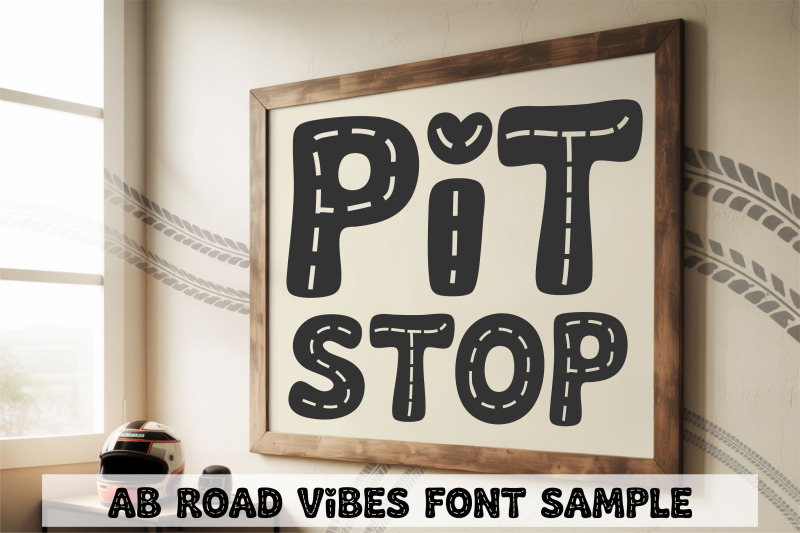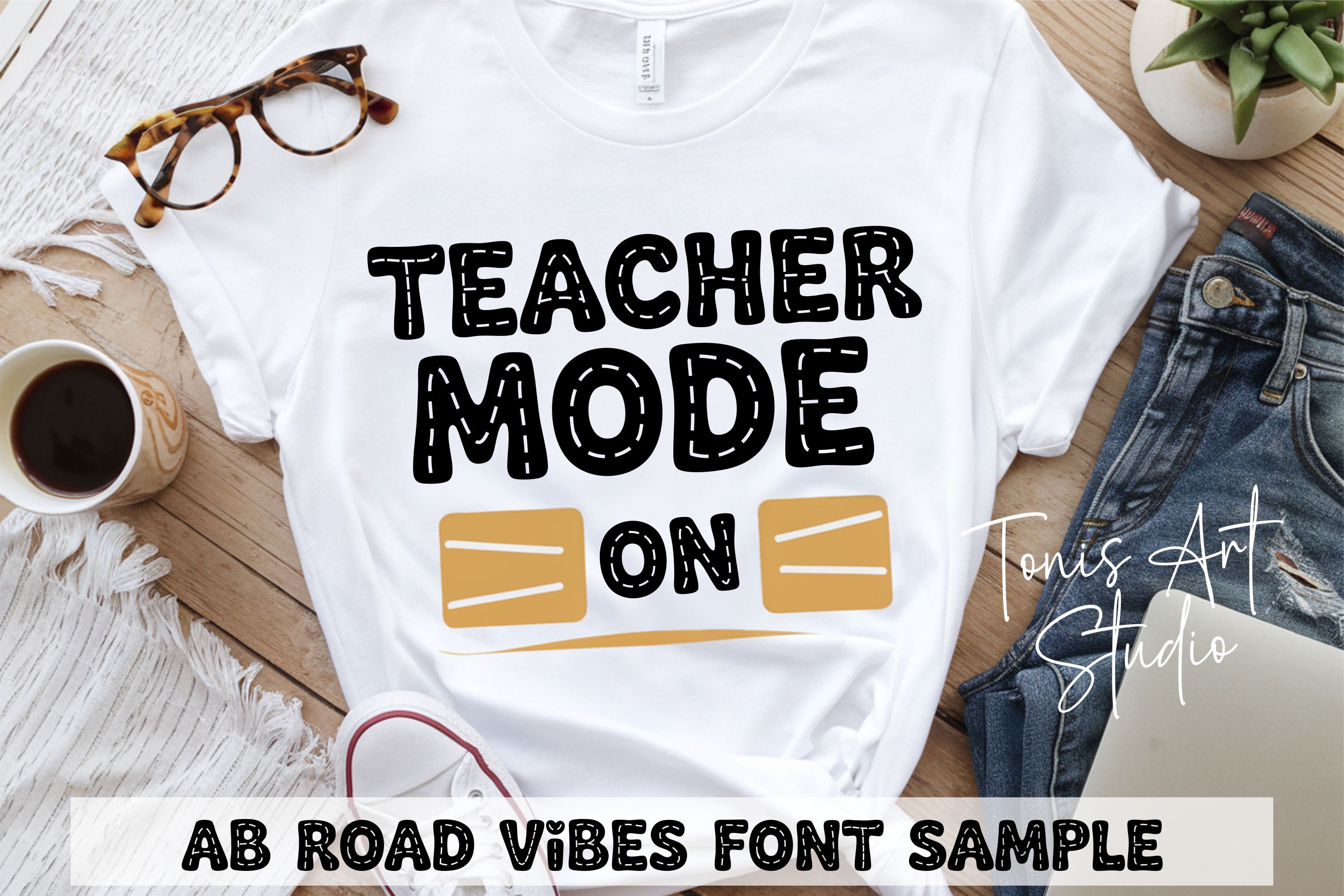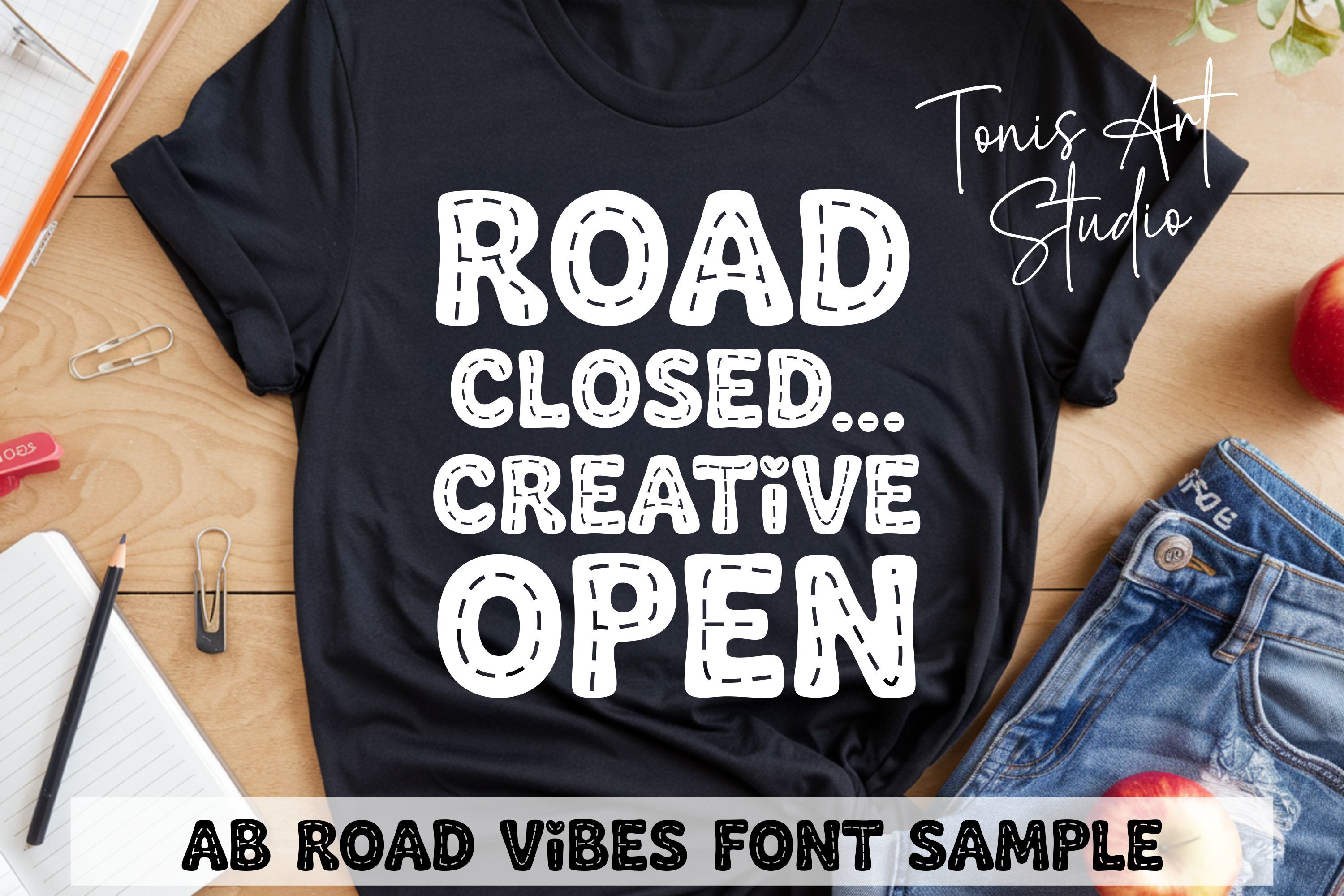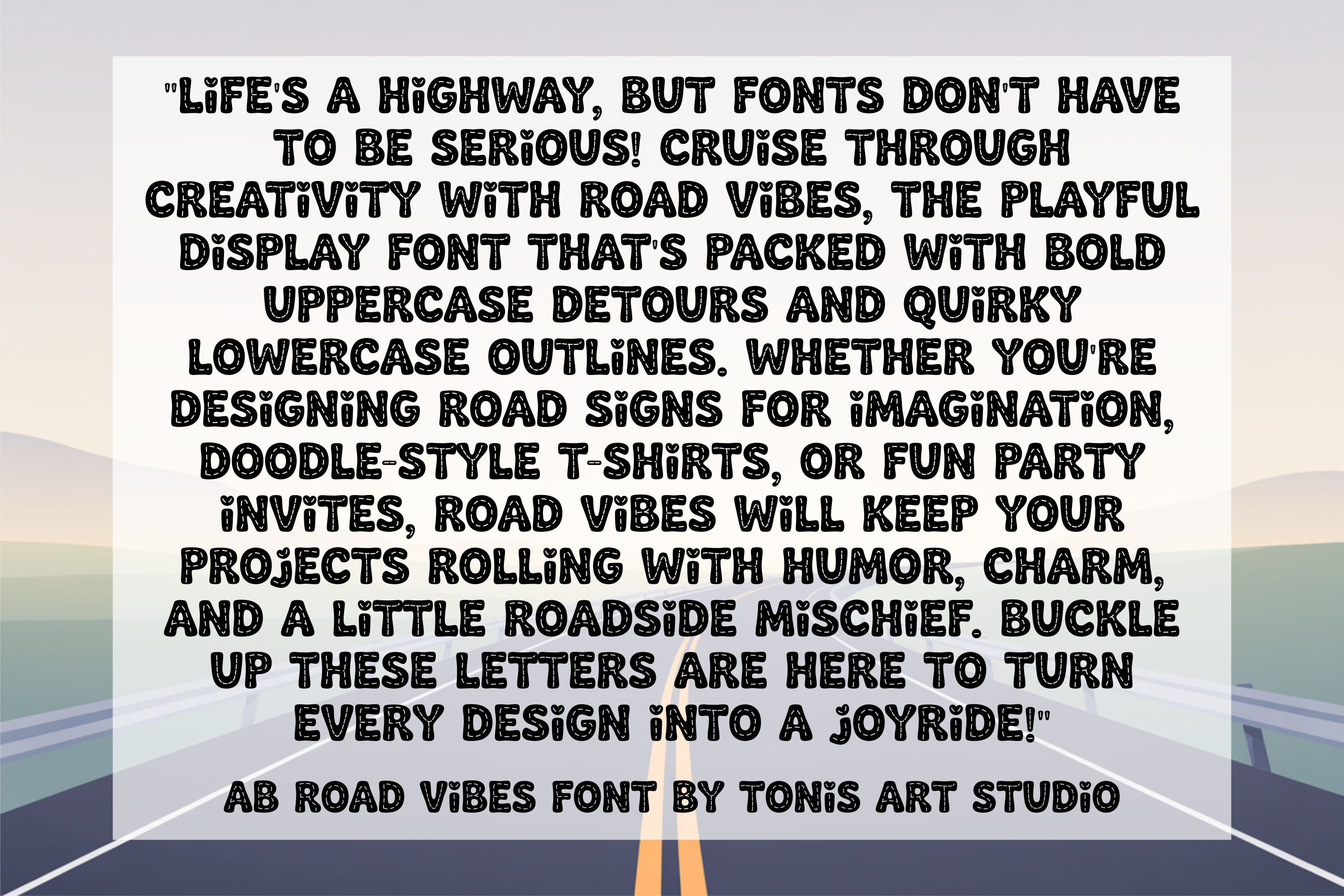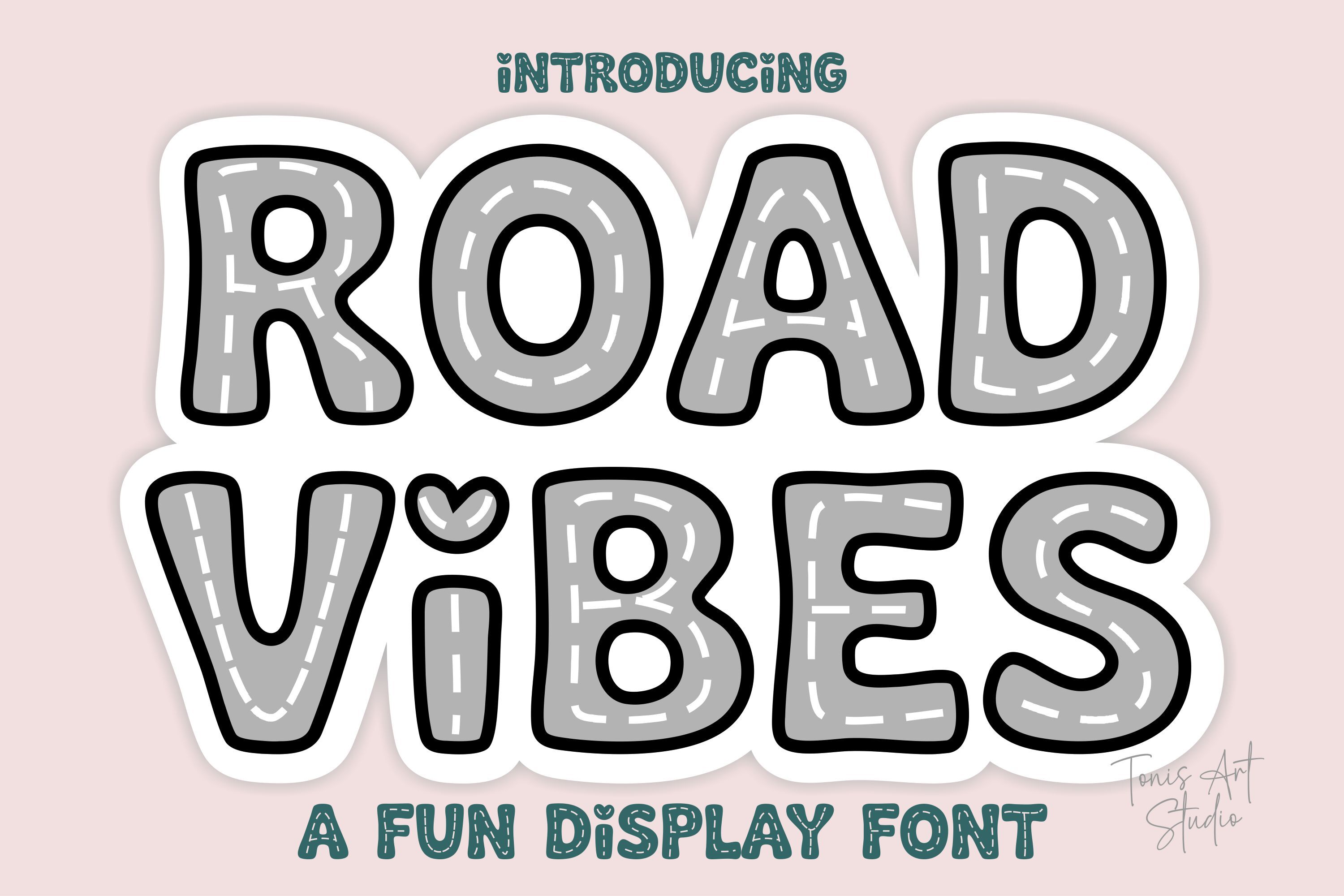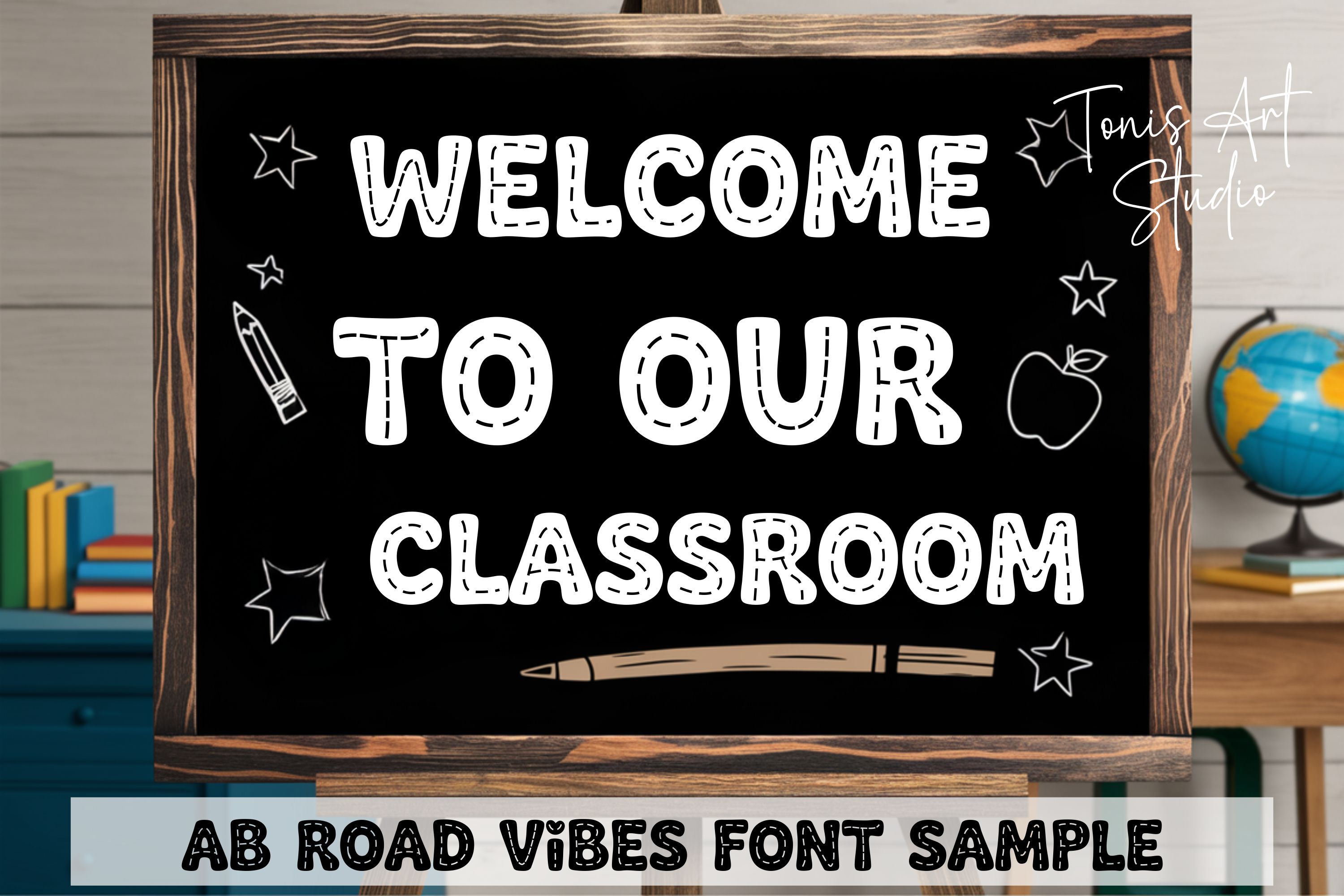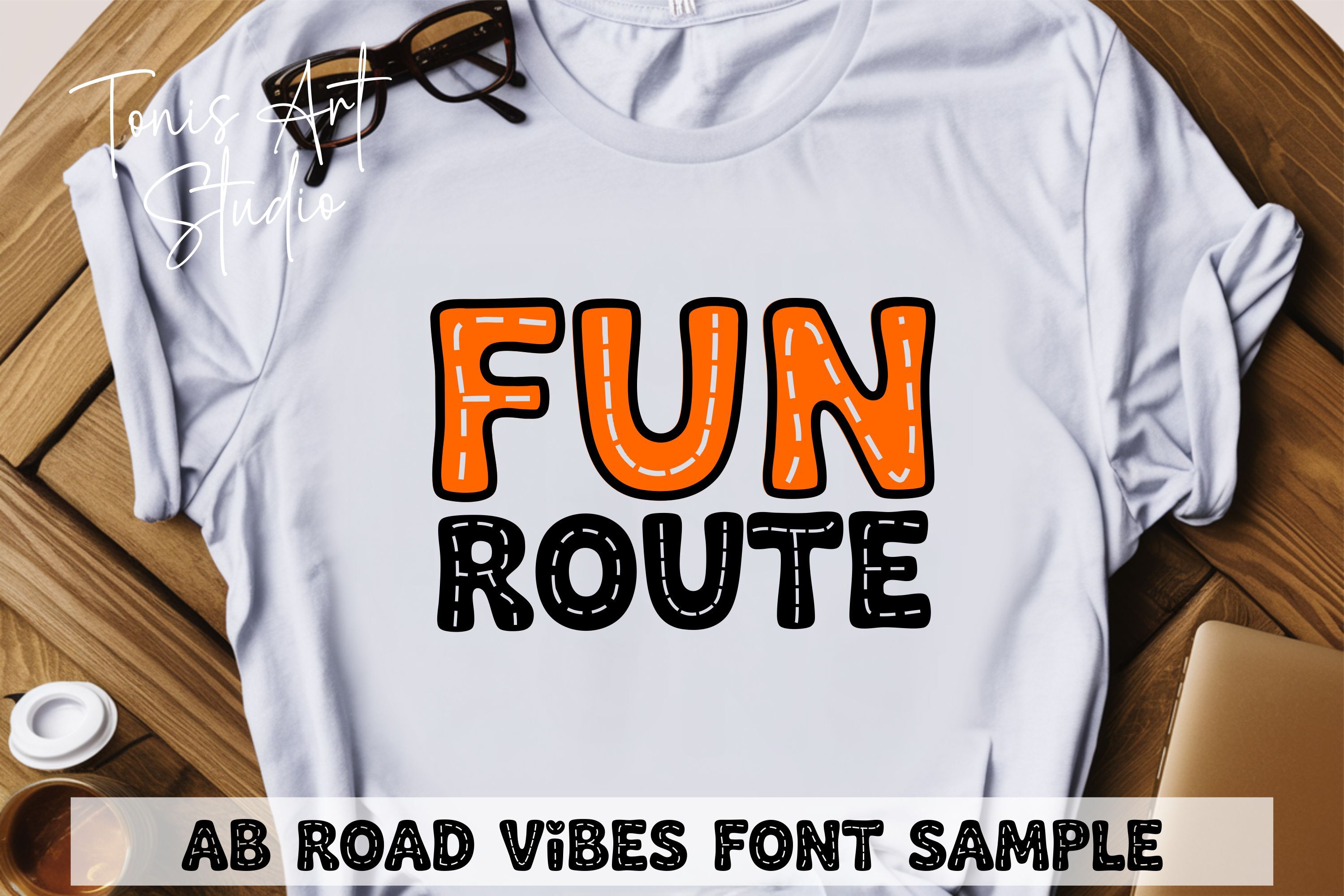
Road Vibes Font | Fun Display Letters | Bold & Outline Style
The Road Vibes Font is a playful display typeface that mixes bold uppercase letters with quirky outlined lowercase characters, creating a unique and fun style. Designed to spark creativity, Road Vibes is perfect for kids’ projects, classroom crafts, t-shirts, mugs, posters, nursery prints, party invitations, and more. Its cheerful design includes a cute heart-shaped dot for the letters “i” and “j,” adding a touch of charm and whimsy to your work. This font package includes both installable font files (OTF and TTF) as well as alphabet cut files (SVG, DXF, EPS, PDF), making it fully compatible with Cricut, Silhouette, Glowforge, Procreate, Canva, and other design programs. Whether you’re crafting playful apparel, designing classroom signs, or creating stickers and planners, Road Vibes will bring joy and character to every project. With its bold yet friendly style, Road Vibes is perfect for crafters, designers, and creatives looking for a font that stands out and delivers happy, road-inspired energy. Let your imagination take the wheel and enjoy the ride with Road Vibes!